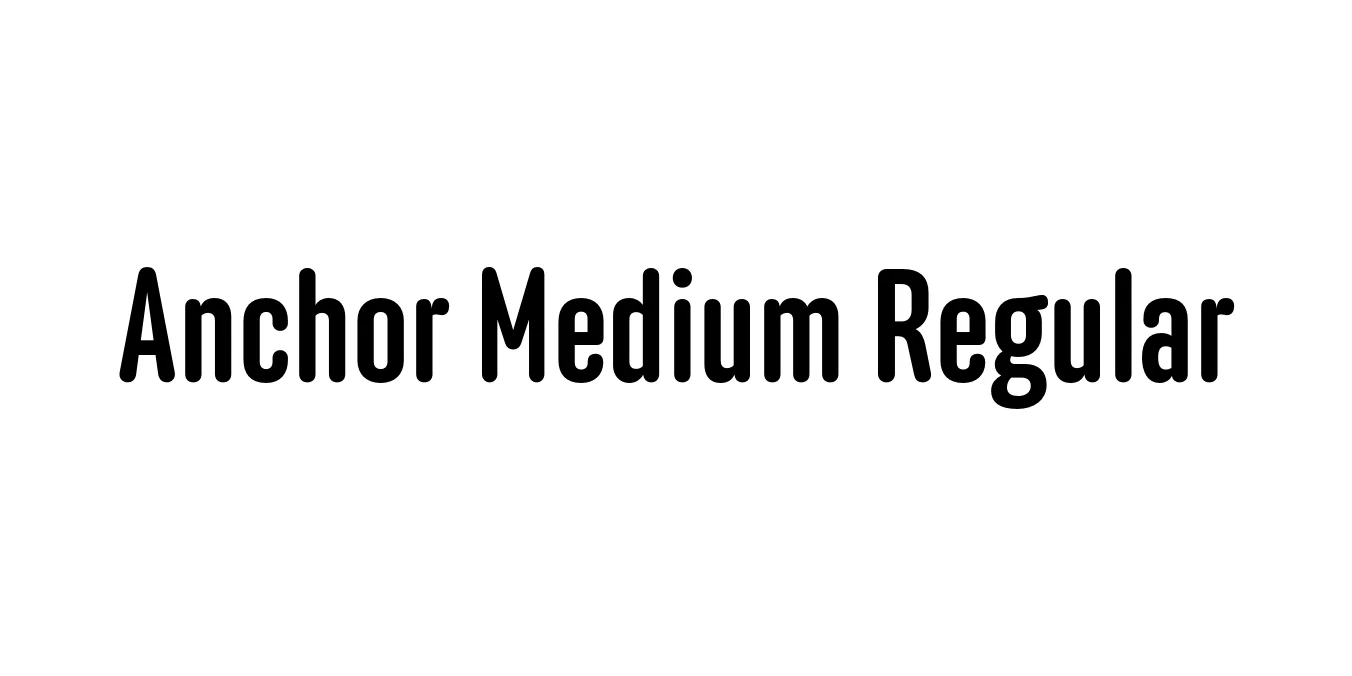
Anchor Medium Regular
Designed by Eric Olson
| Category | Rounded Sans-Serif |
| Designer | Eric Olson |
Anchor Medium Regular is a contemporary rounded sans-serif typeface designed by Eric Olson and released through the Process Type Foundry. Developed as a response to the need for a sturdy yet friendly typeface, it draws inspiration from utilitarian public signage and technical lettering. The font is characterized by its geometric foundations and softly rounded terminals, which provide a modern and approachable aesthetic suitable for a wide range of professional environments.
The Medium weight of the Anchor family offers a perfect balance between visibility and refinement. It maintains exceptional clarity at various sizes, making it an excellent choice for designers who require a typeface that is both high-impact in headlines and highly legible in short blocks of text. Since its release, it has become a staple for brands seeking to project an image of reliability, accessibility, and clean, modern design.
Anchor Medium Regular Best Uses
The rounded terminals and open apertures ensure excellent legibility on small digital screens.
Ideal for companies wanting to appear modern and approachable while maintaining a professional edge.
High character recognition makes it perfect for wayfinding and environmental graphics.
Works well for high-impact headlines in both digital and print marketing campaigns.